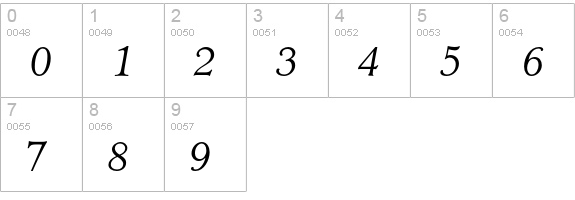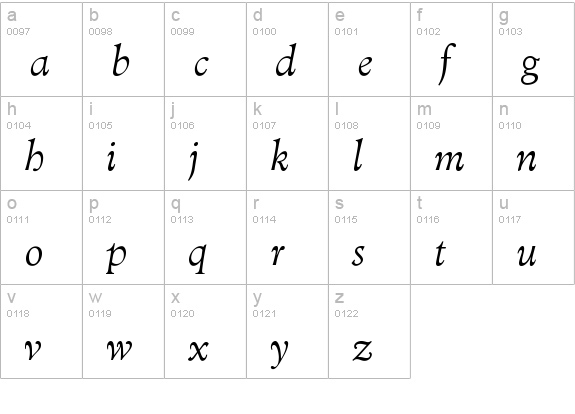
Minister Light Italic Font Details
Minister Light Italic is a refined, elegant, italic variant in the Minister typeface family \xE2\x80\x94 well suited to elegant body text, refined sub-headings, and luxury branding.
Minister Light Italic font is a sophisticated and elegant typeface that exudes a sense of modernity and professionalism. Its slender and graceful letterforms make it perfect for adding a touch of refinement to any design project. The italicized style of Minister Light adds a sense of movement and fluidity, making it ideal for conveying a sense of elegance and sophistication. What sets Minister Light Italic font apart is not only its aesthetic appeal but also its versatility. Whether used for headlines, body text, or design accents, this font is sure to make a statement and elevate the visual impact of any project. And the best part? Minister Light Italic font is available for free download at FontsMarket.com. So you can easily access this premium typeface without breaking the bank. Don't miss out on the opportunity to enhance your designs with the timeless beauty of Minister Light Italic font.